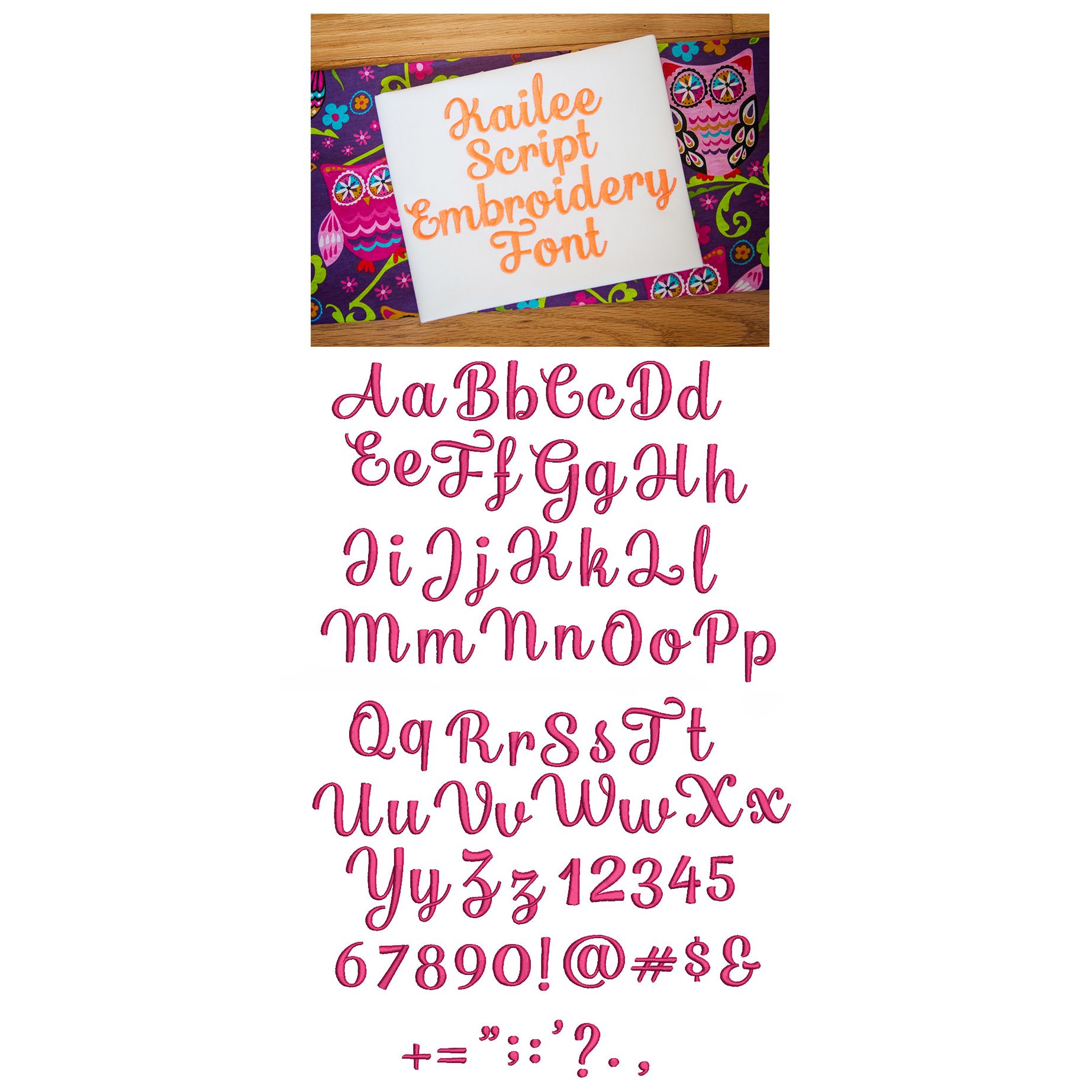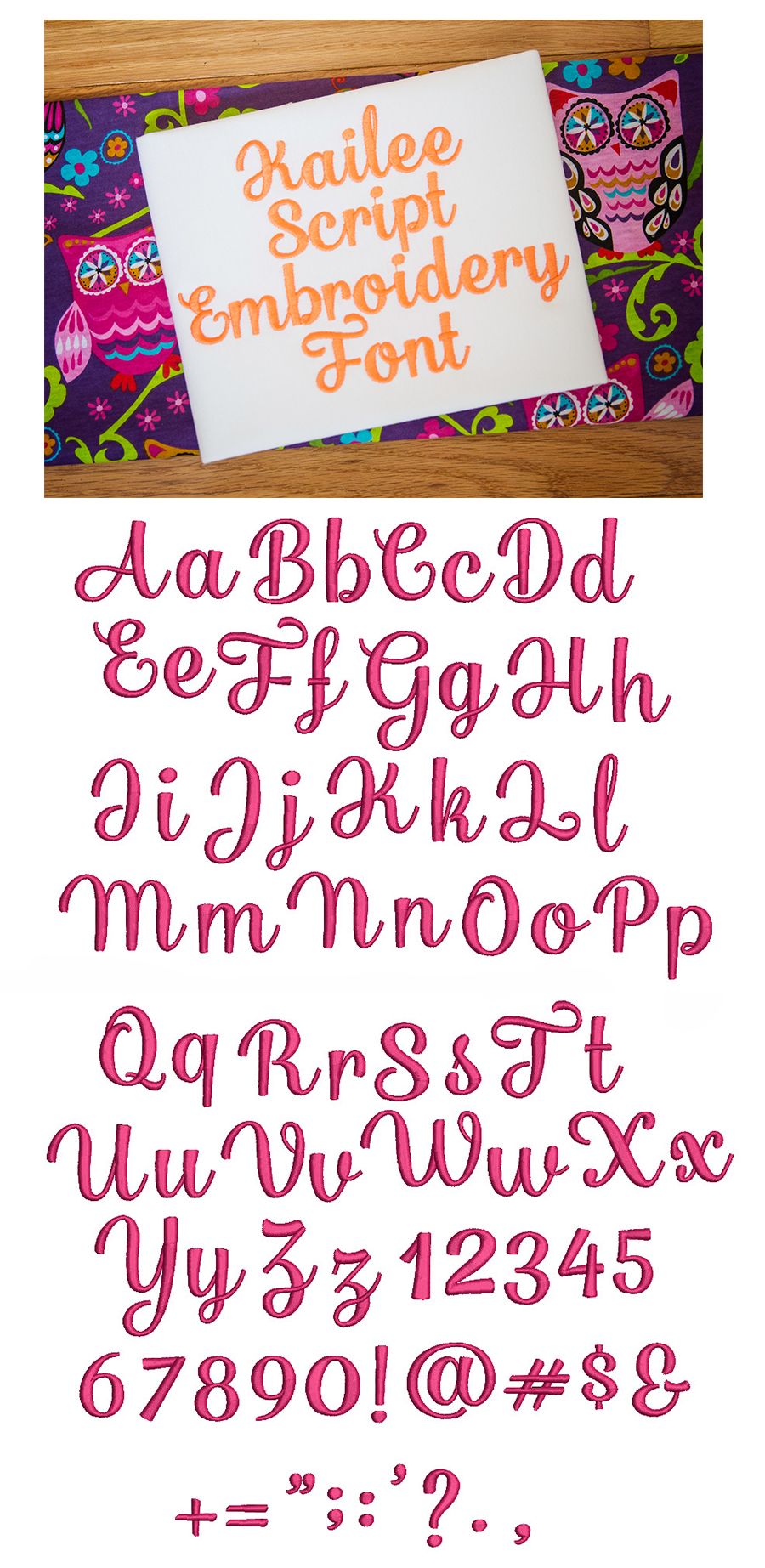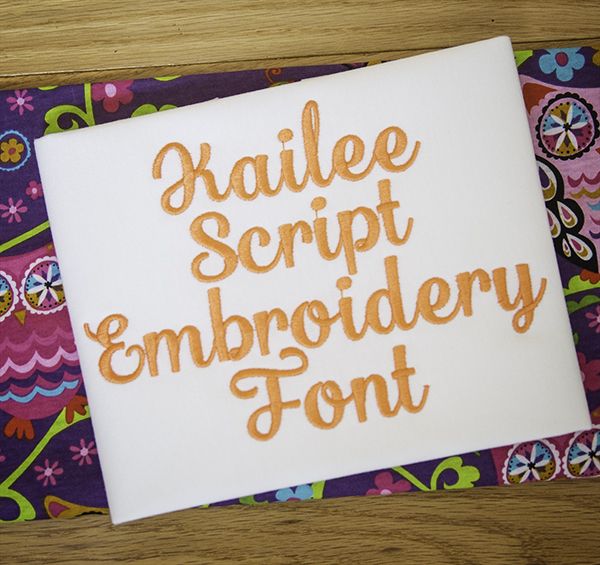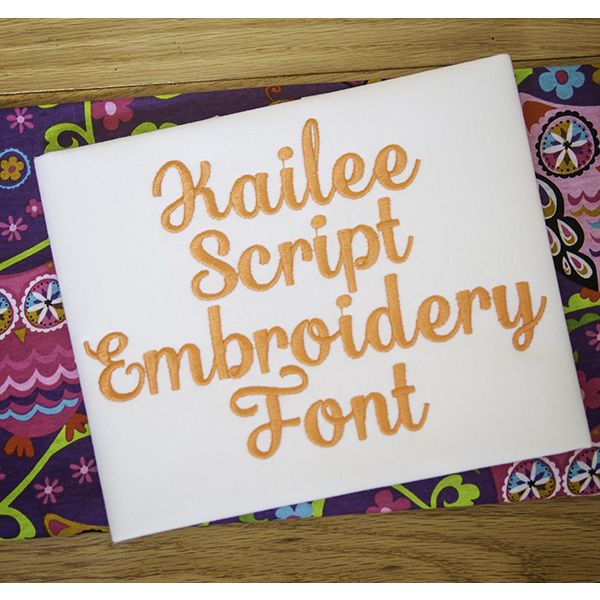
Kailee Script embroidery font is a lovely, elegant, Ā connecting cursive font. Ā All of our font alphabets are 100% manually digitized to bring you maximum stitch quality.